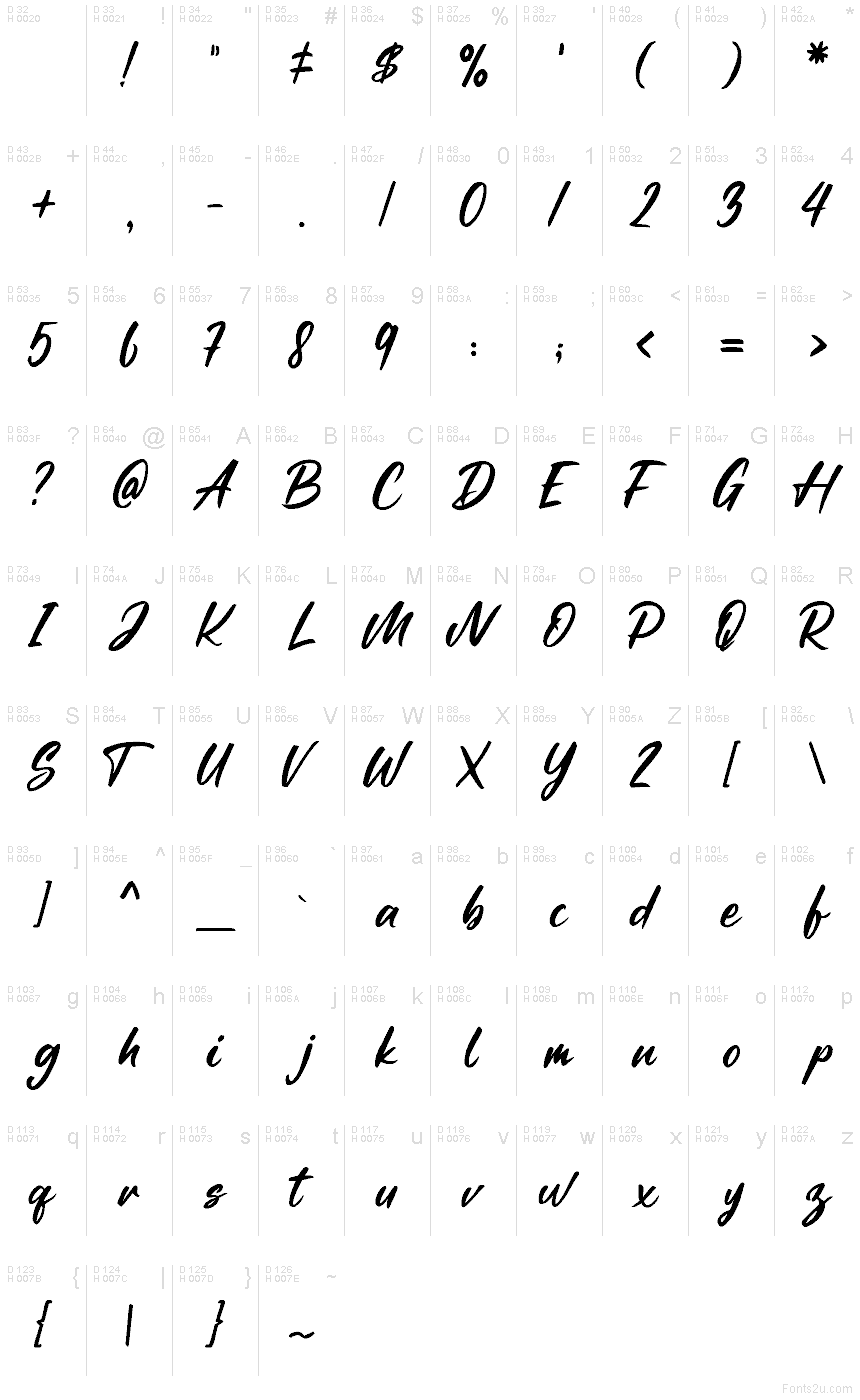
Astrale Couture
Astrale Couture font by BlackFridayFont FMF is a free handwritten brush script typeface. It solves the usual script dilemma: style without squinting. Smooth, inky strokes sweep forward at a confident slant, with tidy connections and just enough texture to feel human—never messy. The rhythm stays even, so words read cleanly while still carrying that boutique, hand-brushed elegance.
Using Astrale Couture, headlines and logos snap into place without extra kerning fuss. It shines on boutique branding, beauty packaging, wedding suites, social media banners, apparel tags, and menu covers. This free font brings warmth to short quotes and signatures, too. Pair it with a crisp geometric sans for body copy, and keep sizes generous to let those tapered strokes breathe.